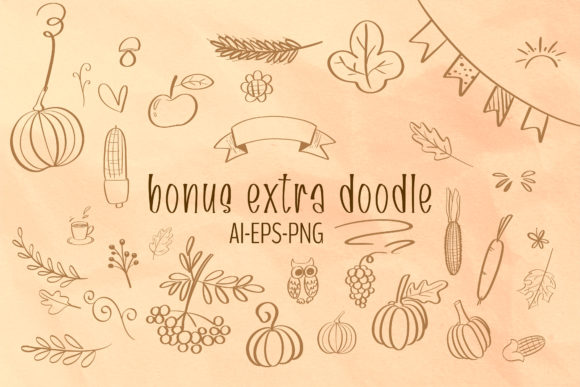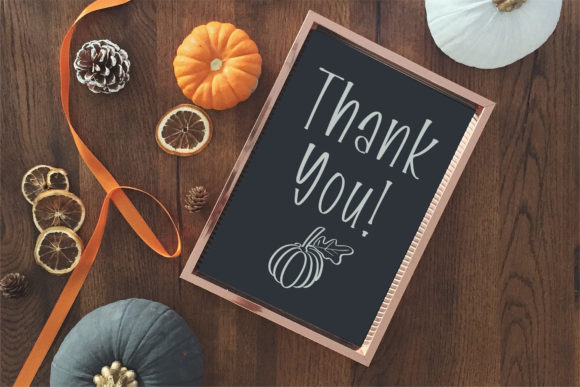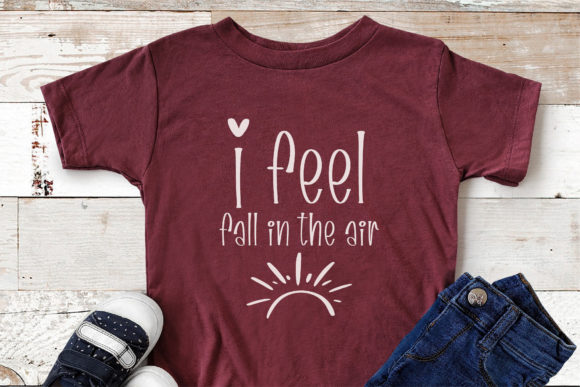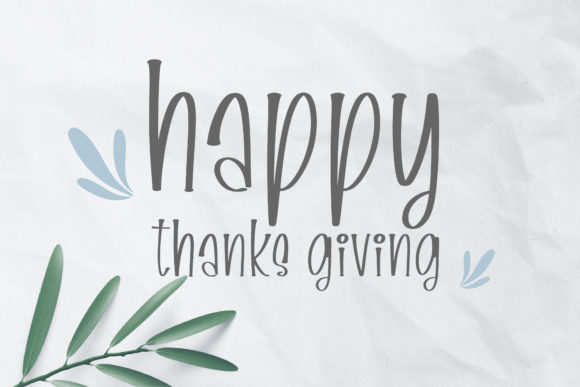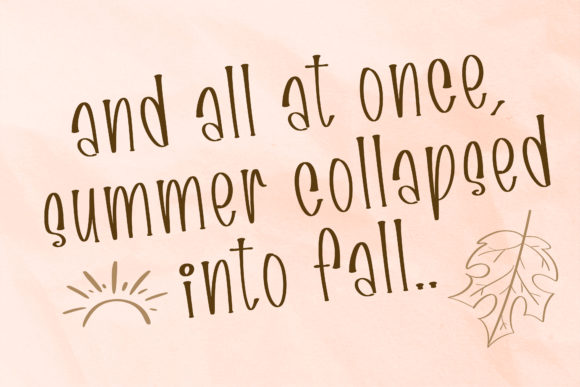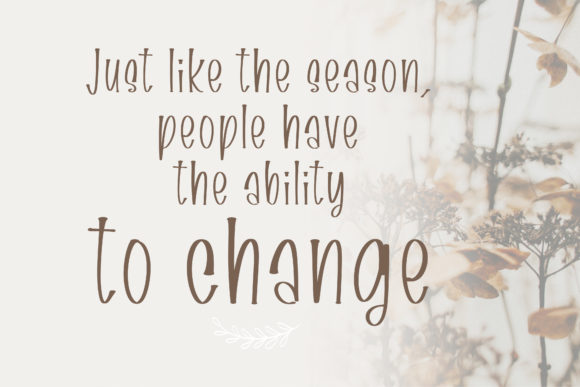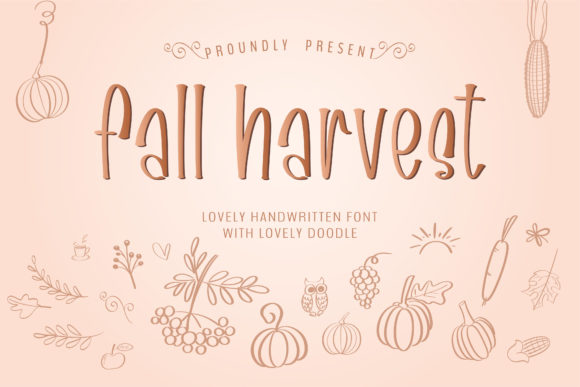
Introducing Fall Harvest Font: The Perfect Addition to Your Design Arsenal
As the seasons change and the air grows crisper, designers and crafters alike are on the lookout for fresh inspiration and new fonts to add to their collections. If you’re searching for a font that embodies the warmth and coziness of the fall season, look no further than Fall Harvest Font. This sweet and friendly handwritten font is the perfect addition to your design arsenal, offering a natural and unique style that’s sure to elevate your projects.
The Characteristics of Fall Harvest Font
So, what makes Fall Harvest Font so special? For starters, its handwritten style gives it a personal and approachable feel that’s hard to find with more traditional fonts. The natural and unique style of Fall Harvest Font makes it incredibly fitting to a large pool of designs, from autumnal-themed projects to more general uses like invitations, labels, and crafts. The only limit is your imagination!
Why Designers and Crafters Love Fall Harvest Font
Designers and crafters are always on the lookout for fonts that can help their projects stand out from the crowd. Fall Harvest Font delivers in spades, offering a distinctive and eye-catching style that’s sure to capture attention. Whether you’re creating seasonal designs, like Thanksgiving cards or Halloween invitations, or simply looking for a fresh font to add to your collection, Fall Harvest Font is an excellent choice.
The Versatility of Fall Harvest Font
One of the best things about Fall Harvest Font is its versatility. This font can be used in a wide range of projects, from:
- Autumnal-themed designs, like fall party invitations or harvest-themed crafts
- Seasonal greeting cards, like Thanksgiving or Halloween cards
- Invitations and announcements for special events
- Labels and packaging for craft projects
- Blog posts and social media graphics
And that’s just the beginning! With Fall Harvest Font, the possibilities are endless, and the only limit is your imagination.
Tips for Using Fall Harvest Font
To get the most out of Fall Harvest Font, here are a few tips to keep in mind:
- Pair Fall Harvest Font with complementary fonts to create visual interest
- Experiment with different colors and textures to add depth and dimension
- Use Fall Harvest Font to add a personal touch to your designs